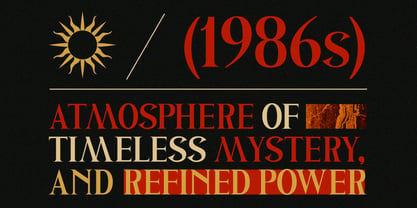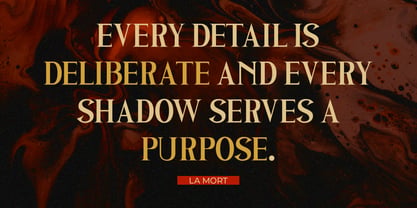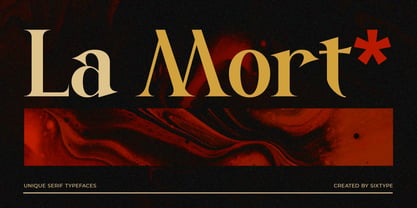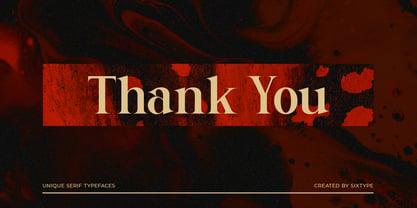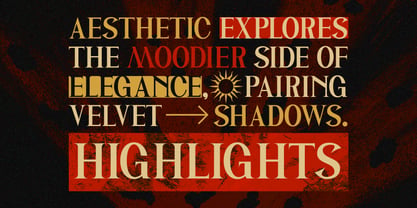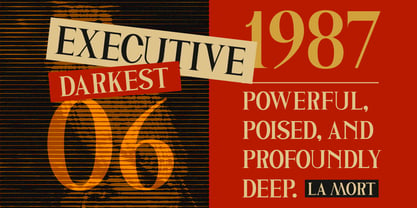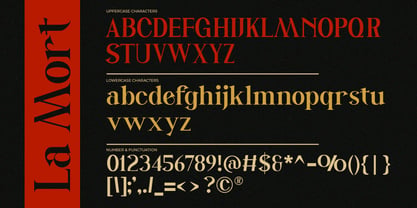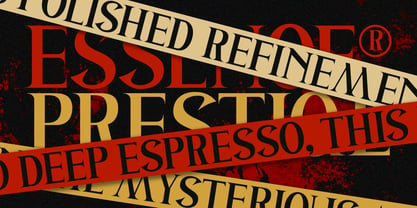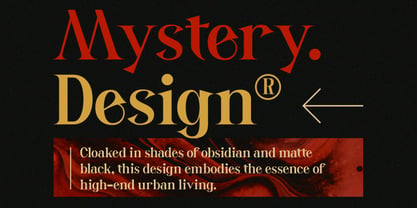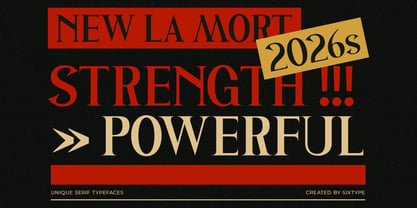
La Mort
La Mort is a bold and atmospheric serif typeface that embodies timeless drama and refined power. With its high-contrast strokes, sharp sculptural serifs, and expressive curves, it evokes a cinematic elegance grounded in classic typography while embracing a modern, edgy tone. The letterforms exude a strong personality mysterious, confident, and slightly gothic making it perfect for statement-driven design. Whether utilized in luxury branding, editorial headlines, posters, or artistic direction, La Mort offers a commanding presence with rich emotional depth that captivates and endures. This versatile typeface is ideal for creating impactful visuals that resonate with audiences.